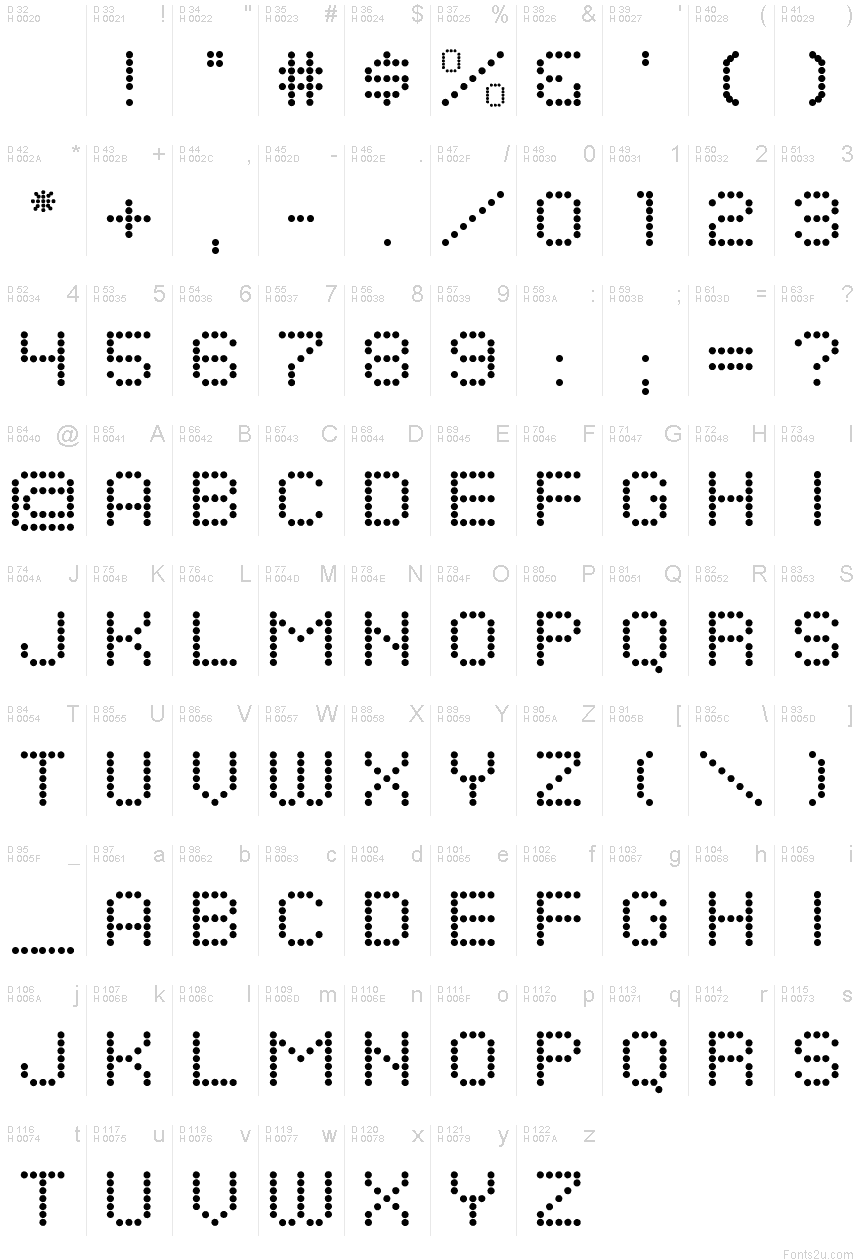
Dots All For Now JL
Dots All For Now JL font by Jeffrey N. Levine is a free digital dot-matrix typeface that writes in tidy rows of inky circles, like an old LED sign mid-scroll. The round “pixels” keep everything airy and rhythmic, turning even plain words into a blinking, late-night marquee.
Using Dots All For Now JL, you’ll get instant retro-tech flavor on arcade posters, techno flyers, event tickets, sci‑fi UI mockups, album covers, logo wordmarks, and social headers. This free font reads best when you size it up and give it a little breathing room; pair it with a clean geometric sans for supporting text so the dotted headline can do the talking.